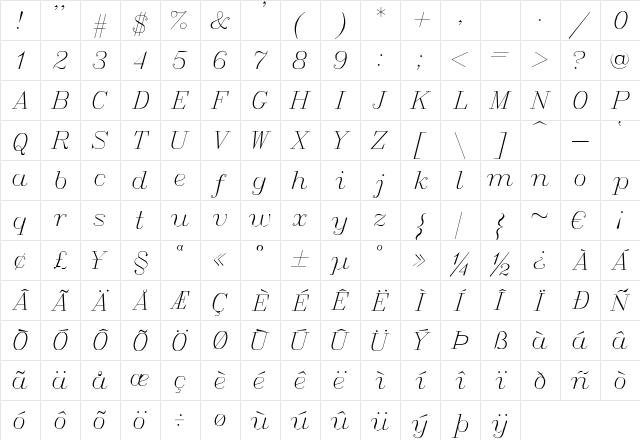
Italic Regular
Design Context for Italic Typeface
Italic takes a measured approach to typography — its balanced proportions and neutral character make it a reliable workhorse for both digital and print work. The dynamic lean of this cut emphasises speed and emphasis in any layout.